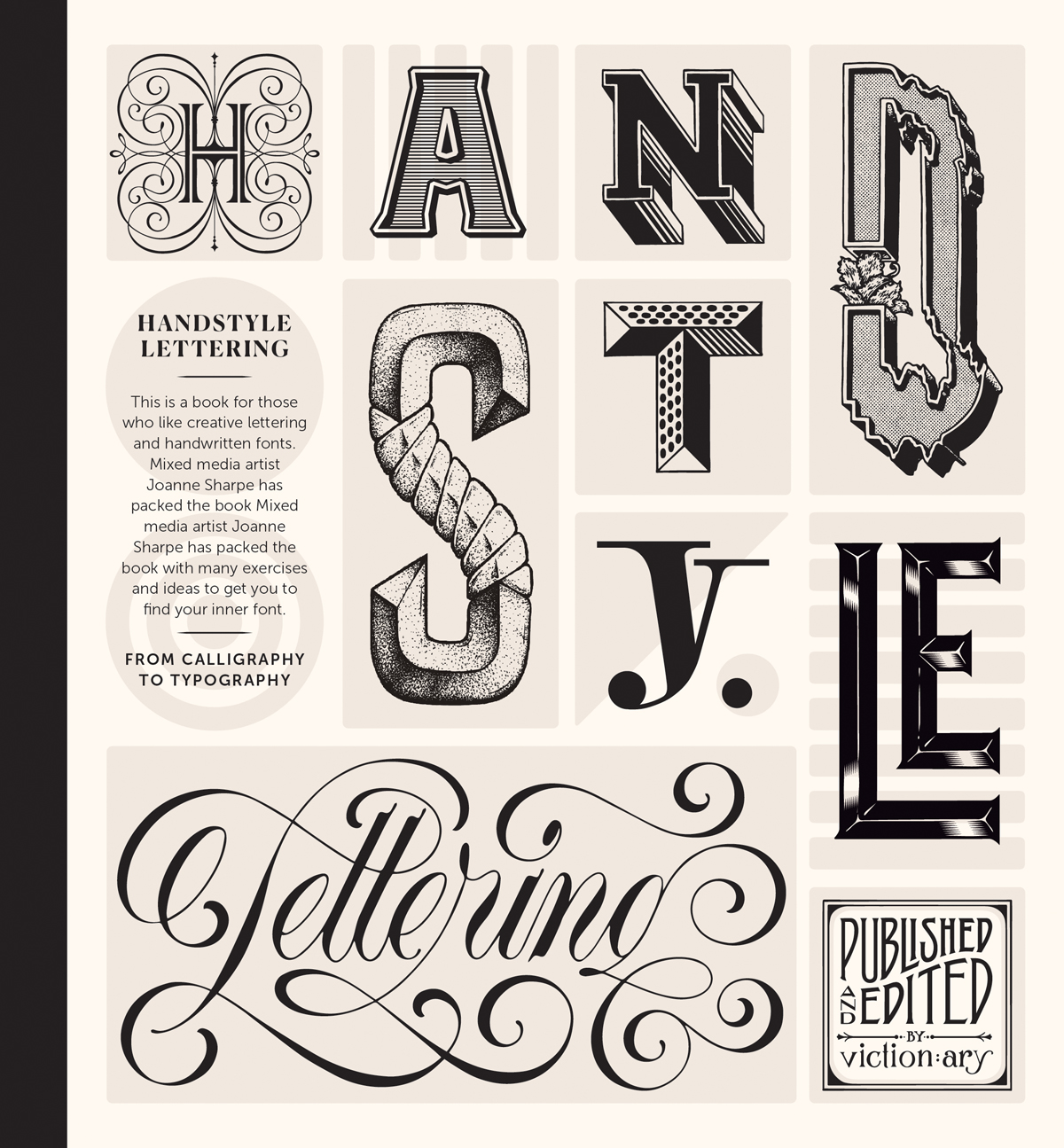
Handstyle Lettering: From calligraphy to typography
Between calligraphy and typography stands the age-old art of hand-lettering, which encompasses both forms while retaining its own character and individuality. Whilst we depend over-abundantly on the digital form and type printing, Handstyle Lettering represents the comeback and resurgence of the titular art, returning the human touch and warmth that has been lacking in our digital age.
The book acts as an inspiring introduction to the world of hand-lettering through its three sections, kicking off with a series of artist interviews then expanding into a showcase of artworks that is anything but unvaried. Distinct characters bleed through the pages in ink, chalk, graphite, black, monochrome, splashes of colours, between structured and abstract, from retro designs to extravagant classics to illustrative mixed styles to striking logos. Shunning uniformity, 42 international artists with the most sought-after works contributed to create a guide to the aged technique accompanying our contemporary culture, and top it off with an exclusive step-by-step guide on how to perfect the craft.